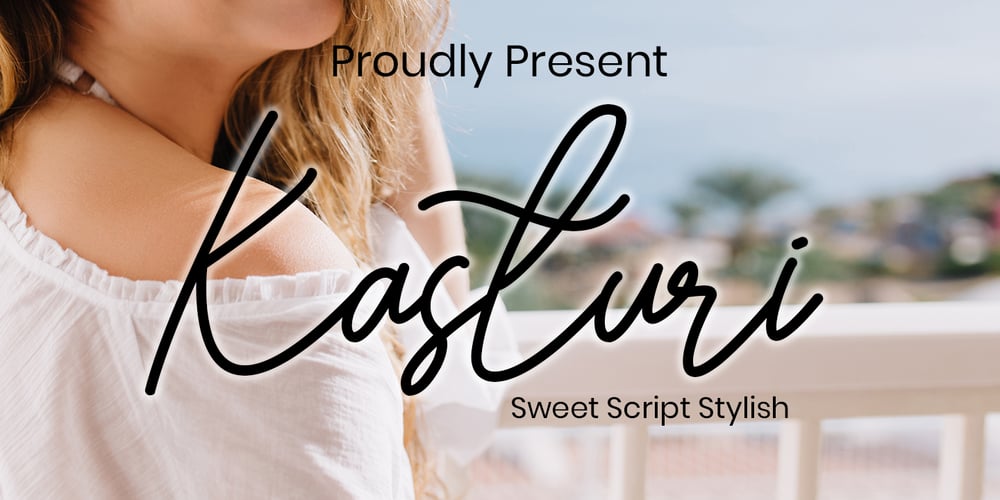
Kasturi Font Family was designed by Mohamad Candirah and published by MC Creative. Kasturi contains 1 styles and family package options. Kasturi is monoline script font which natural movement and stylish.Kasturi is perfect for branding projects, logo, wedding designs, social media posts, advertisements, product packaging, product designs, label, photography, watermark, invitation, stationery and any projects that need handwriting taste.What’s Included : Standard Glyphs Ligature Works on PC & Mac Simple installations Accessible in the Adobe Illustrator, Adobe Photoshop, Adobe InDesign, even work on Microsoft Word. PUA Encoded Characters – Fully accessible without additional design software. Fonts include multilingual support for; ä ö ü Ä Ö Ü ß ¿ ¡